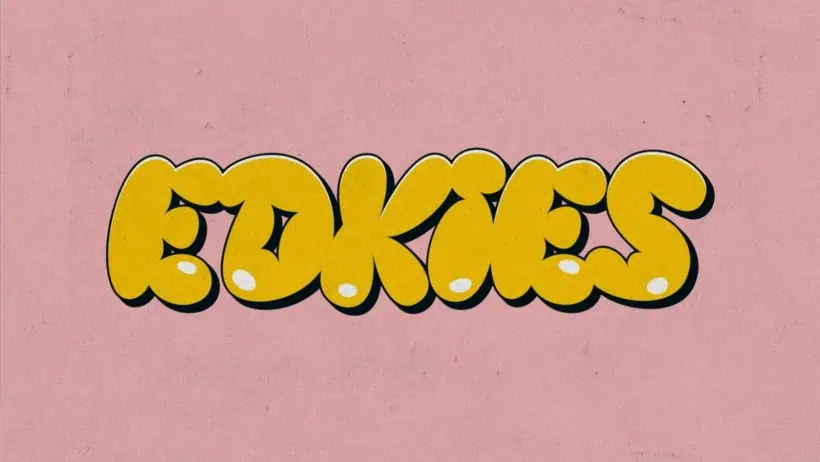
Eye-catching Edkies Bubble Display Font for Logos and Kids, by Pixel Surplus
Edkies, chubby bubble display font in Regular, 3D and Outline, uppercase charm with Y2K vibe, free for personal use, see it in action.
Edkies: Inflated Charm for Bold Brand Statements
As a branding curator, I recommend Edkies for projects that need instant, playful personality.
Its chubby, inflated letterforms read clearly from distance, ideal for headlines and logotypes.
Three coordinated styles, Regular, 3D, and Outline, layer effortlessly for versatile compositions.
Uppercase only glyph set tightens rhythm, simplifying deployment across posters, packaging, and social headers.
Multilingual support and full numerals make Edkies practical for real world briefs.
Edkies lands precisely in the Y2K and retro registers, yet feels fresh and contemporary.
Use it bold on posters, playful on apparel, or layered for eye catching packaging labels.
This toolkit is a quick win for studios, freelancers, and in house teams seeking instant tone.
I guarantee a fast visual lift, with type that commands attention without losing warmth.
The synchronized proportions across styles ensure clean layering and strong visual hierarchy.
Outline strips designs back to their inflated skeleton, while 3D adds depth with a bold offset.
Grab Edkies for concept explorations, quick mockups, and punchy brand experiments that need friendly impact.